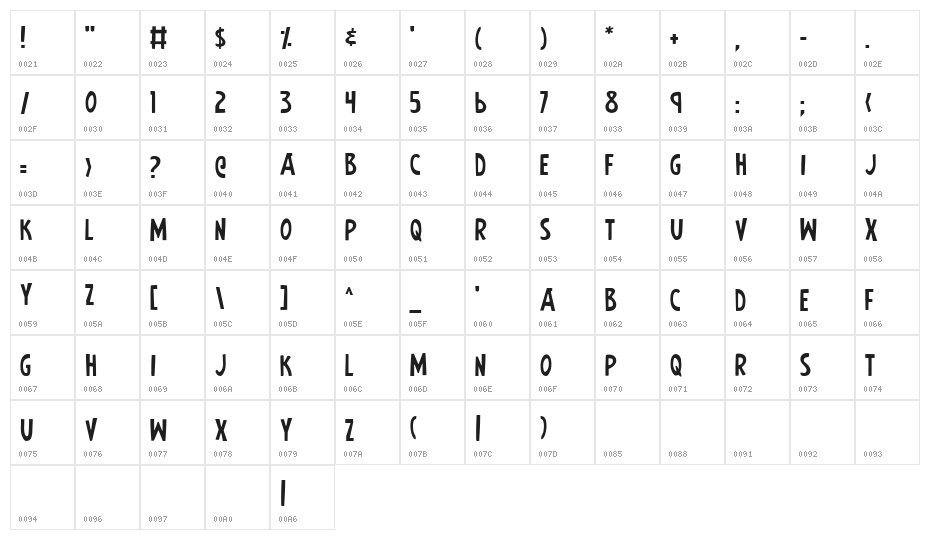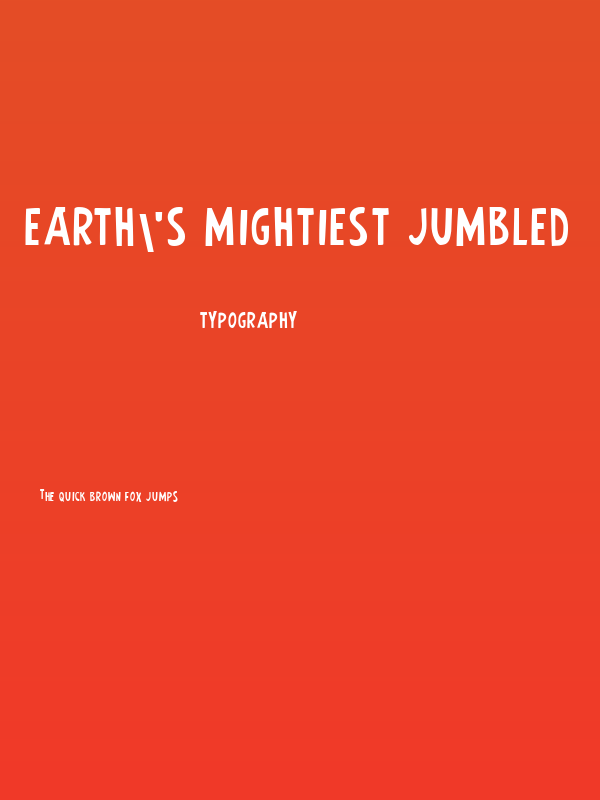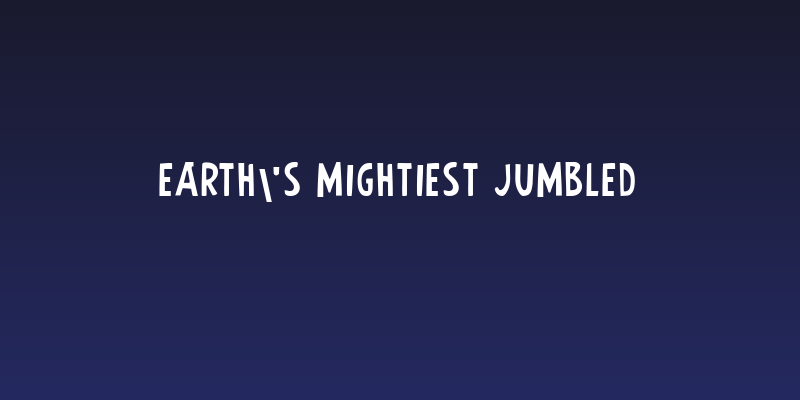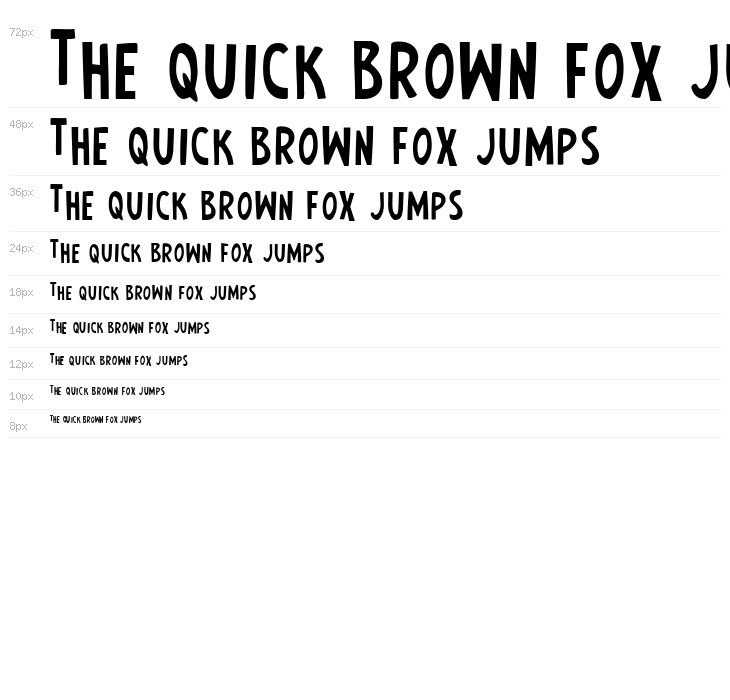
Earth's Mightiest Jumbled Font
Earth's Mightiest Jumbled Description
This font features a bold and playful style with a slightly condensed appearance. The characters are uniformly thick, giving it a strong presence. The uppercase letters are particularly striking, with a slight slant that adds a dynamic feel. The lowercase letters maintain the same boldness, ensuring consistency across text. Numbers are clear and easy to read, while special characters are designed to match the overall aesthetic. This font is ideal for projects that require a fun and engaging look, such as posters, headlines, and branding materials.
| Proposed Projects | Perfect for posters, headlines, branding, and any project needing a fun, engaging look. |